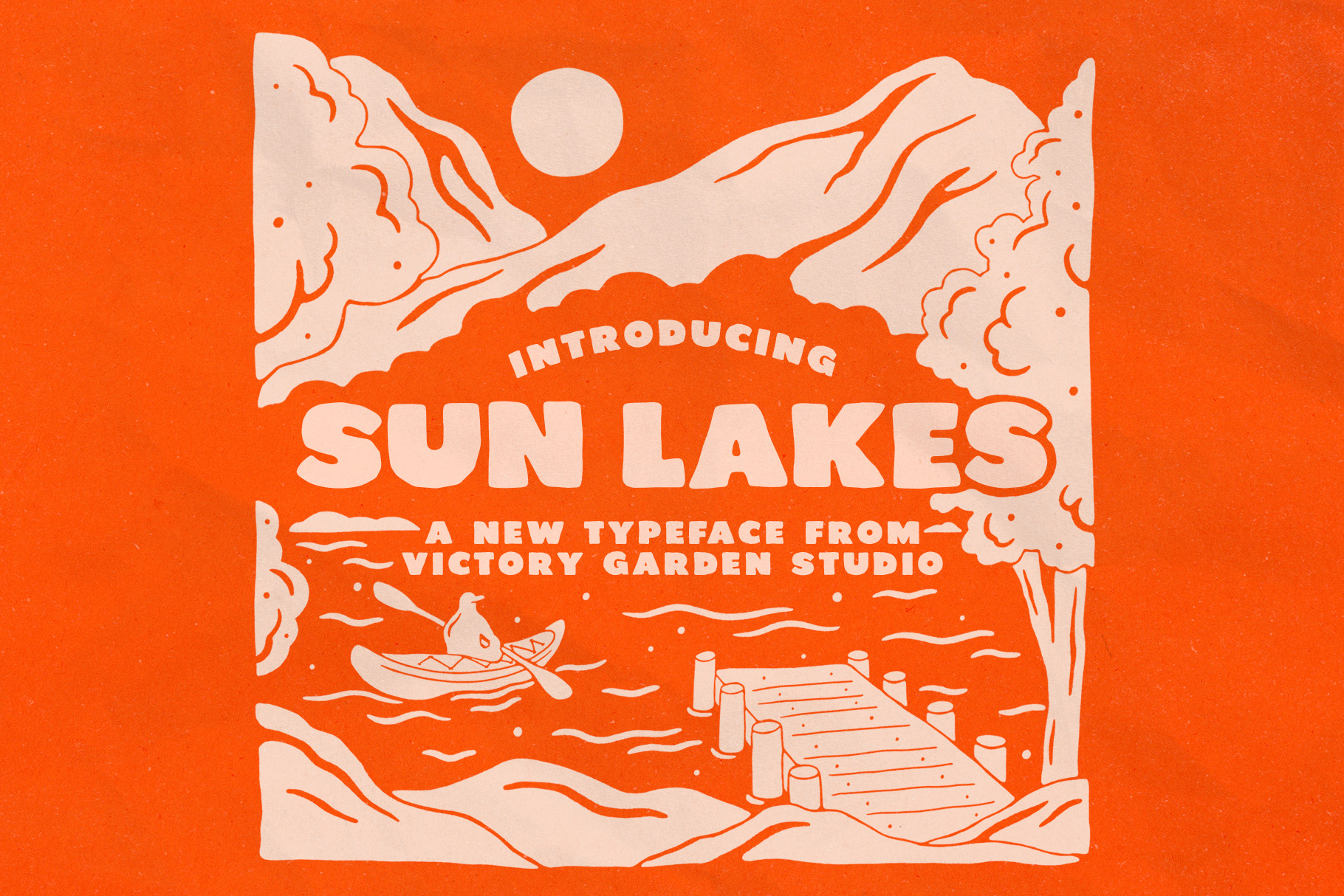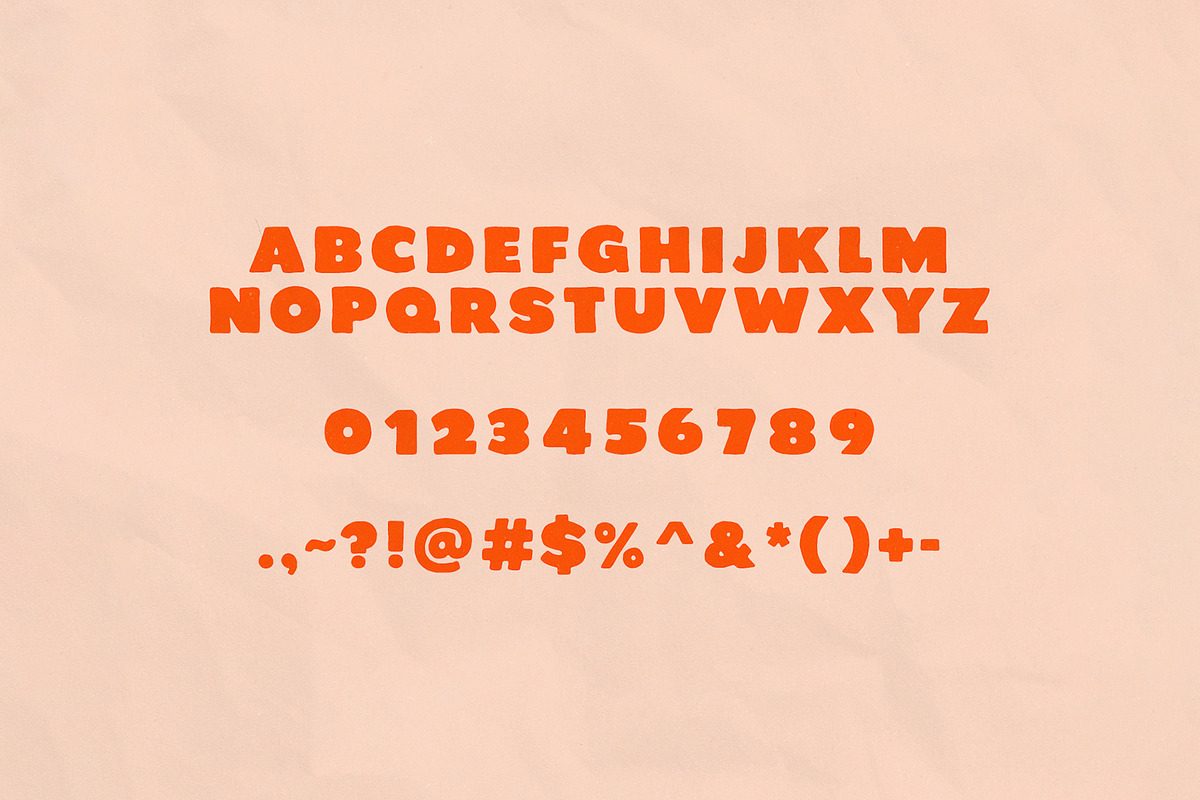
SUN LAKES | Bold Sans Serif Font
Introducing VG Sun Lakes!
Fun & bold. Ready for adventure. Subtle variation between capital and lowercase characters. Featuring Capital A-Z, Numbers 0-9, Punctuation, and Alternate Characters.